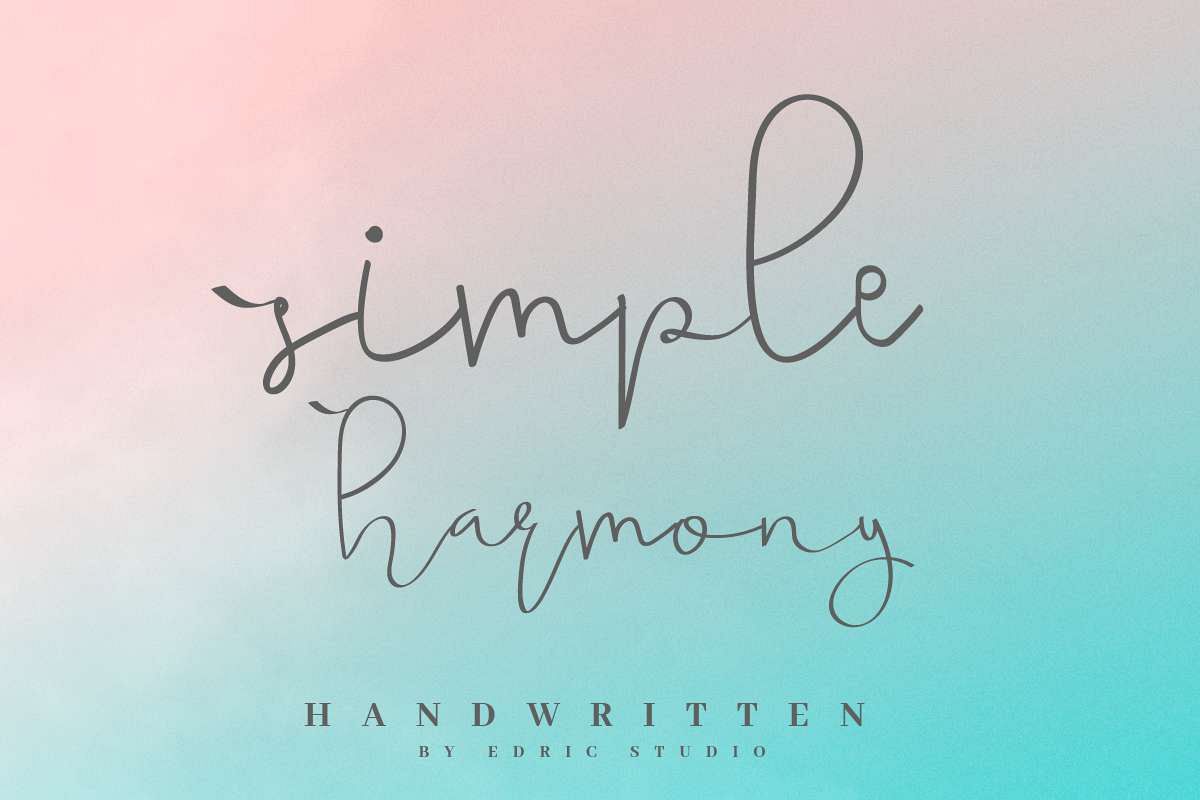
simple harmony
Hello Dear World, Welcome aboard. Introducing the latest of our baby font : Simple Harmony  .This is a simple calligraphy font script. It supports most of international language characters. It has a unique glyphs set. Exclusively made by our artist here from our studio in Bandung Indonesia.Simple Harmony Font will be awesome for all your projects/ products : cover, banner, social media, magazine, product label, tag, etcOn The zip you will get several files: